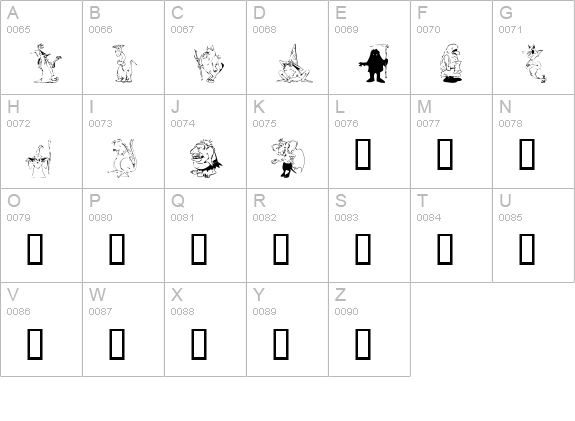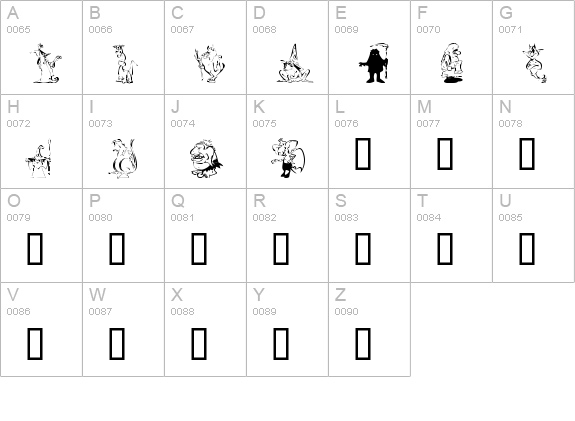
KR RPG Font Details
Introducing the KR RPG font, a whimsical and playful typeface perfect for all your gaming and fantasy-themed projects. This unique font features intricate details and intricate design elements that capture the essence of classic role-playing games. With its bold strokes and dynamic style, KR RPG is sure to make your text stand out and grab attention. Best of all, this incredible font is available for free download at FontsMarket.com. Simply head over to the website and grab your own copy to add a touch of magic to your designs. Whether you're creating posters, logos, game graphics, or anything in between, the KR RPG font is sure to elevate your projects to the next level. Don't miss out on this amazing opportunity to enhance your creative work with this fantastic font. Download now and let your imagination run wild with KR RPG!